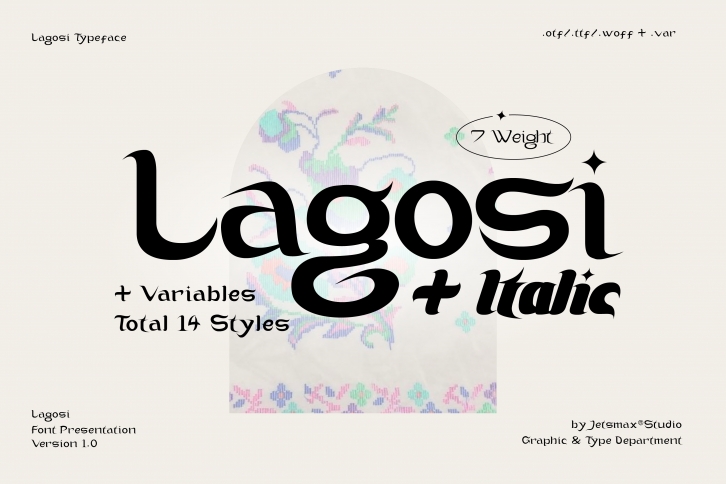
Lagosi is a pointed slab serif font inspired by the features on the Lagosi fabric found in Wajo, South Sulawesi. They range in weight from light cuts that are bold and elegant to black and strong. Packed with more sets of Italic gestures and other custom bindings, this typeface is perfect for adding sparkle and elegance to your designs.